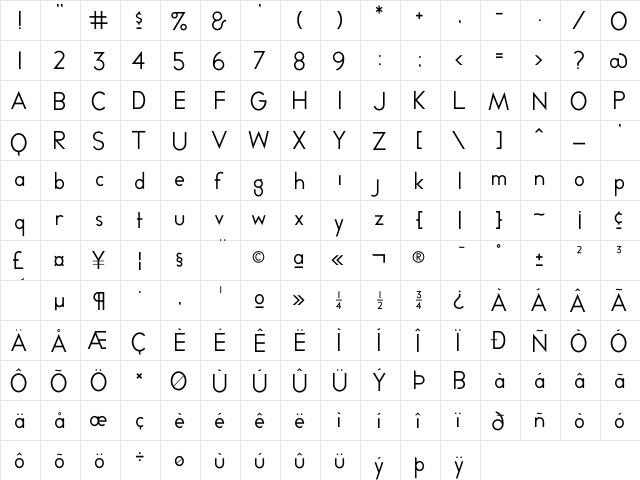
Melvinsans Thin
Design Context for Melvinsans Typeface
Melvinsans offers clean, dependable letterforms without strong stylistic allegiance, making it a practical choice for designers who need flexibility. The delicate stroke weight brings airiness and refinement to layouts.